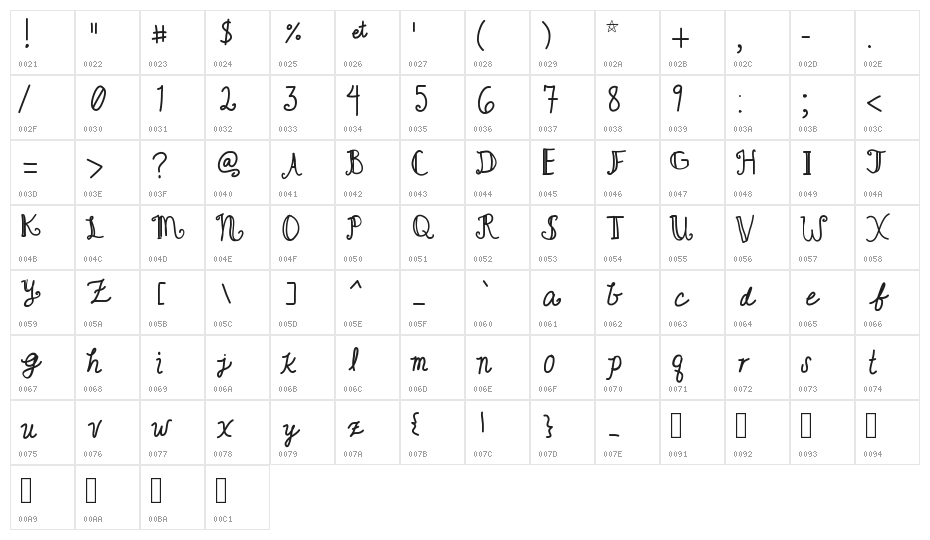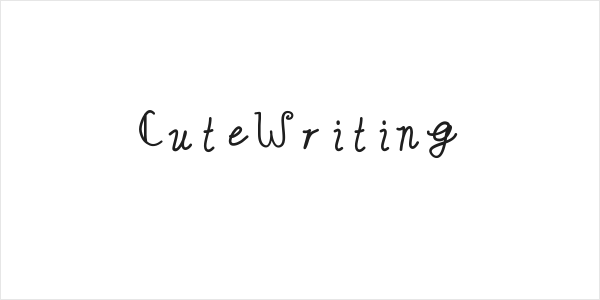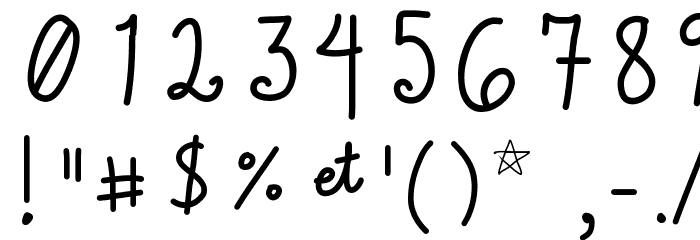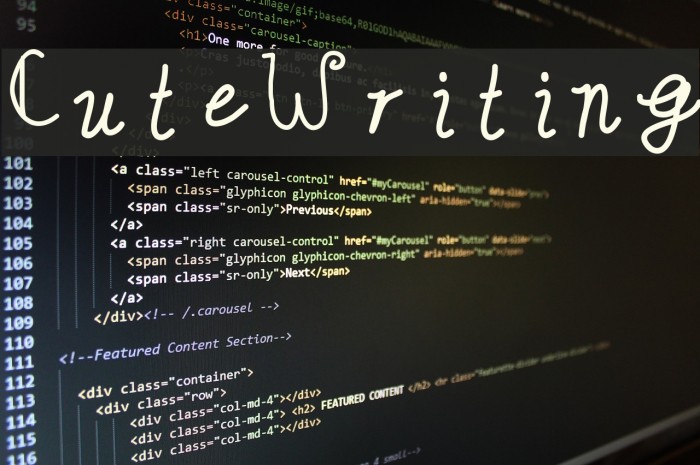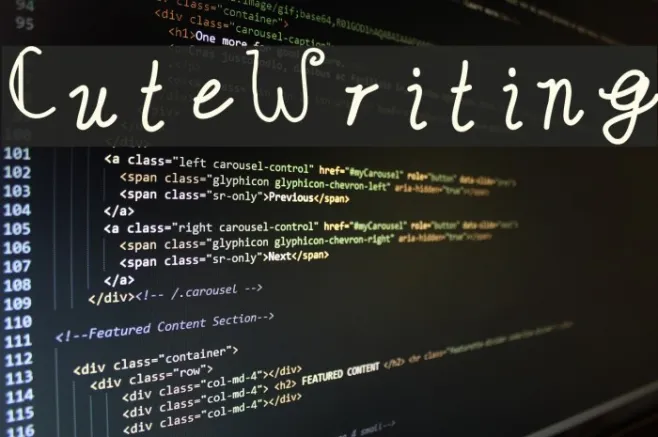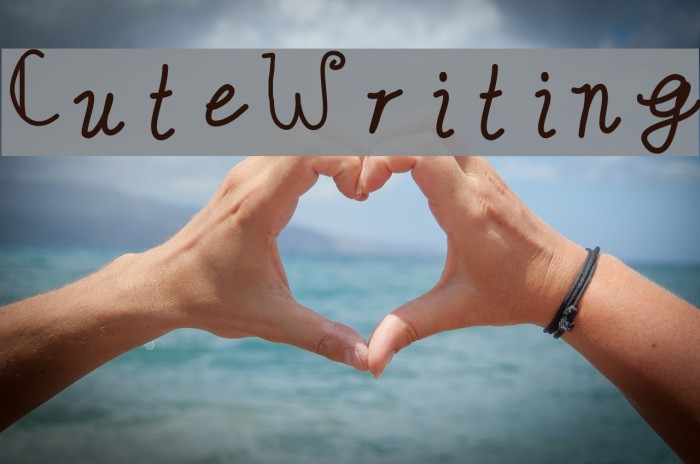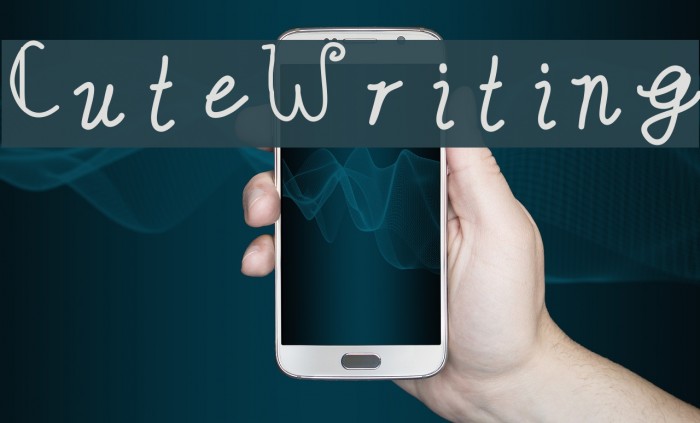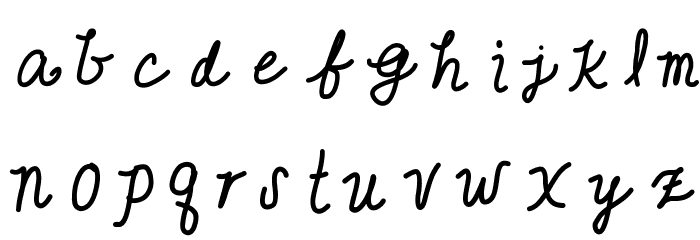
CuteWriting Font
CuteWriting Description
This charming and playful font features a whimsical handwritten style, characterized by its fluid and curvy strokes. The uppercase letters exhibit a delightful mix of straight lines and gentle curves, giving them a unique personality. The lowercase letters maintain a consistent flow, enhancing the font's overall cohesiveness. Numbers are crafted with a similar playful touch, ensuring they blend seamlessly with the alphabet. Special characters are thoughtfully designed, adding to the font's versatility. The font's informal and friendly appearance makes it ideal for projects that require a personal touch.
| Use Case | Headlines, Invitations, Greeting Cards |
| Proposed Projects | Ideal for greeting cards, children's books, playful branding, and social media graphics. |